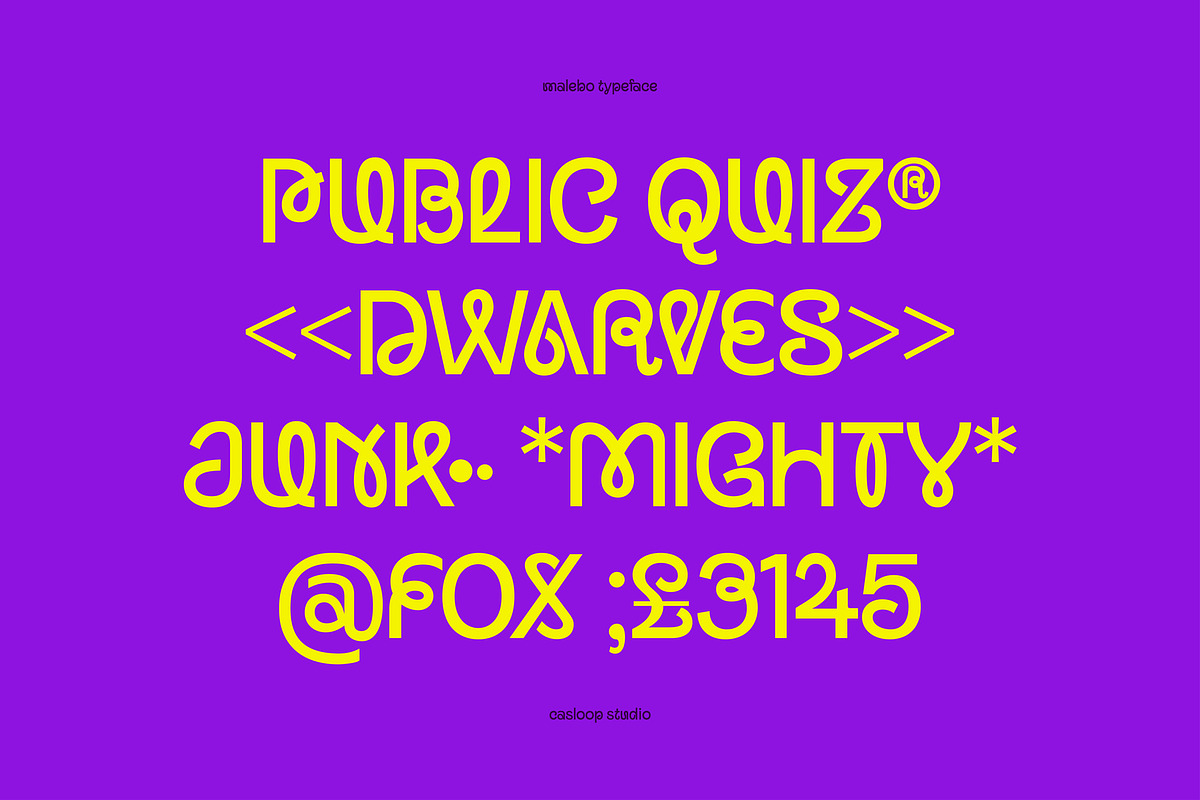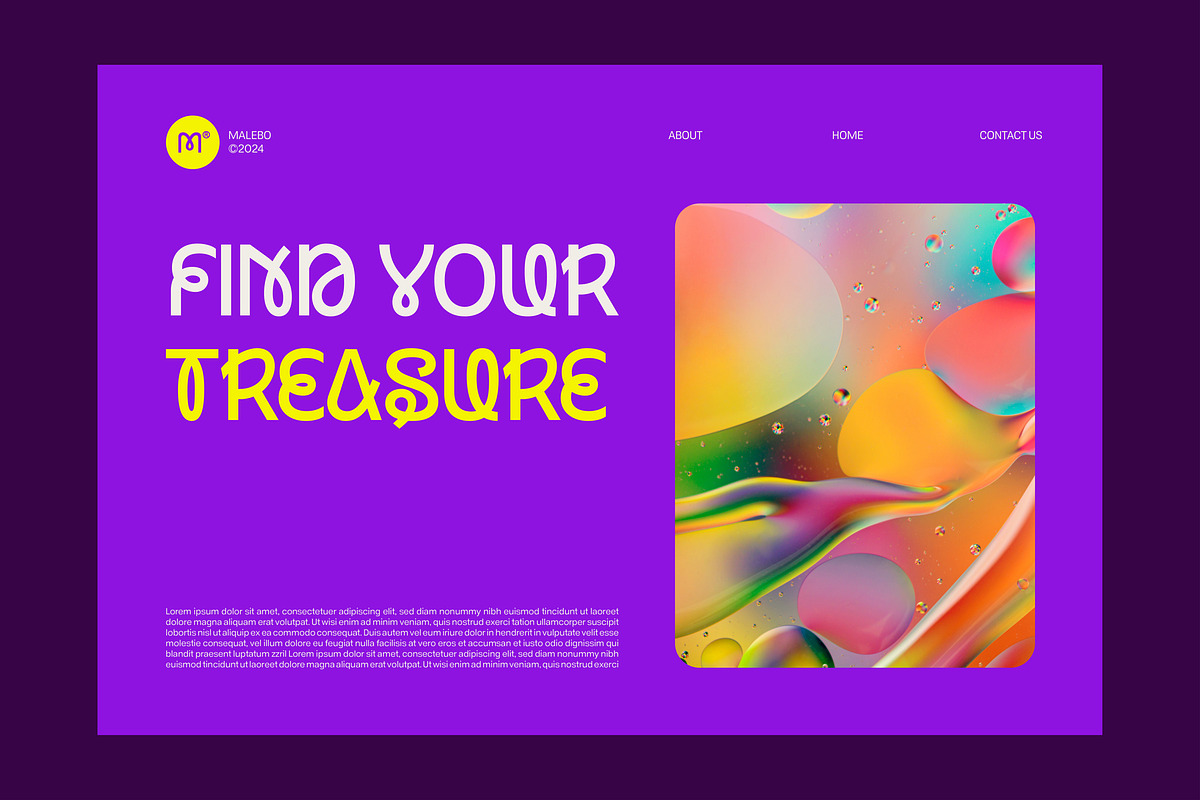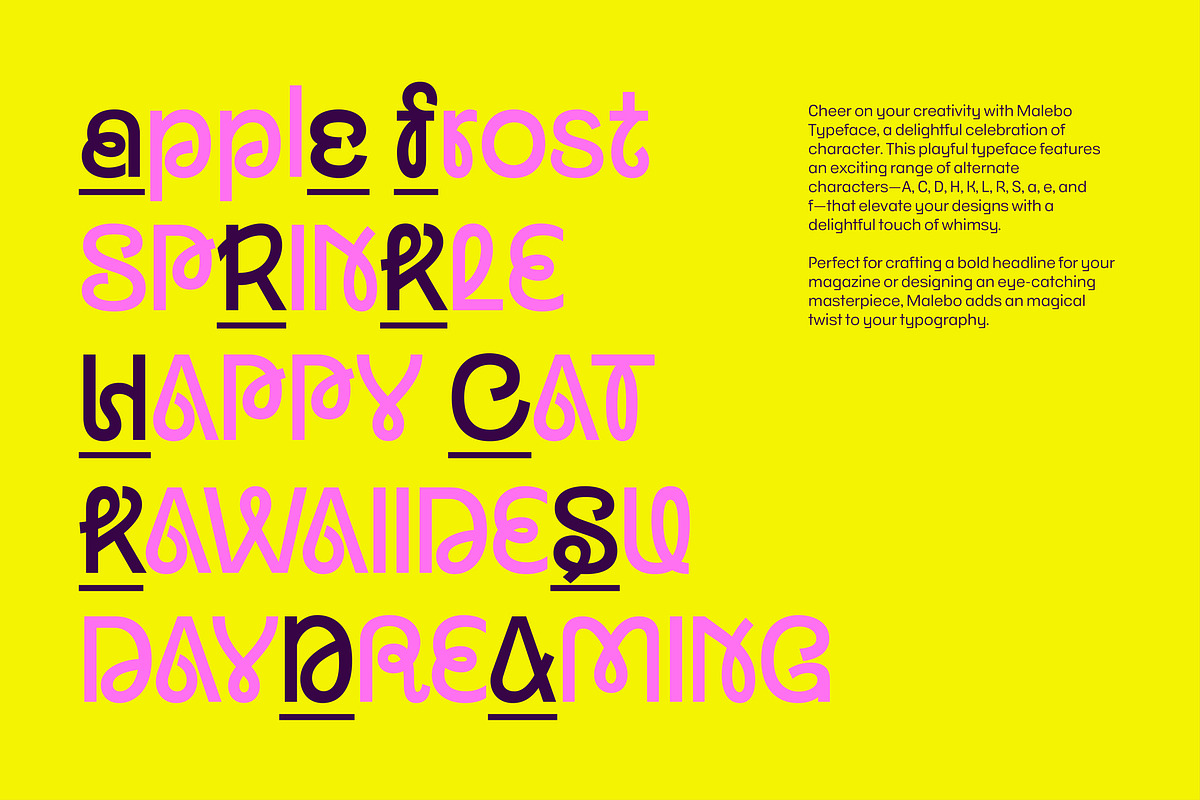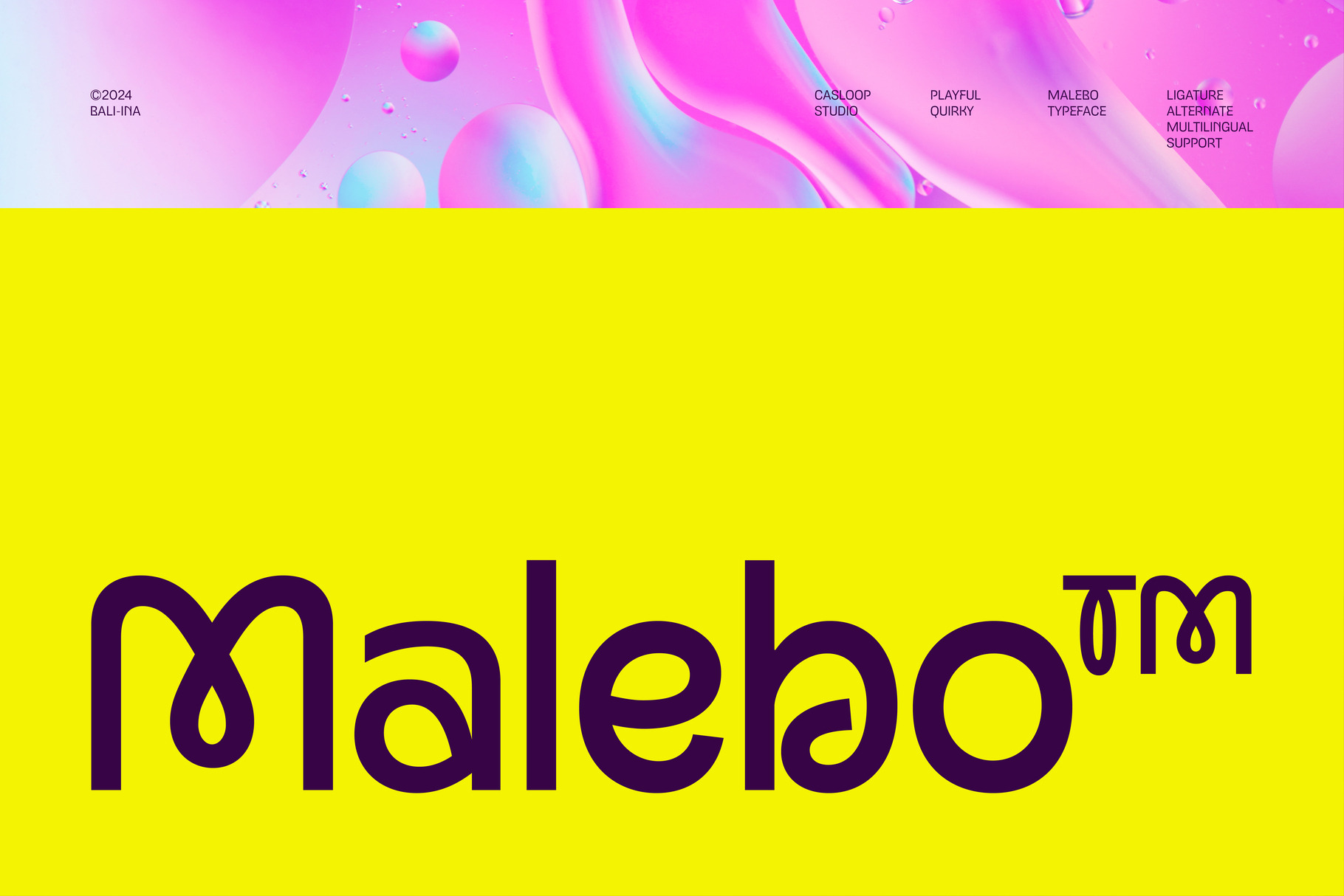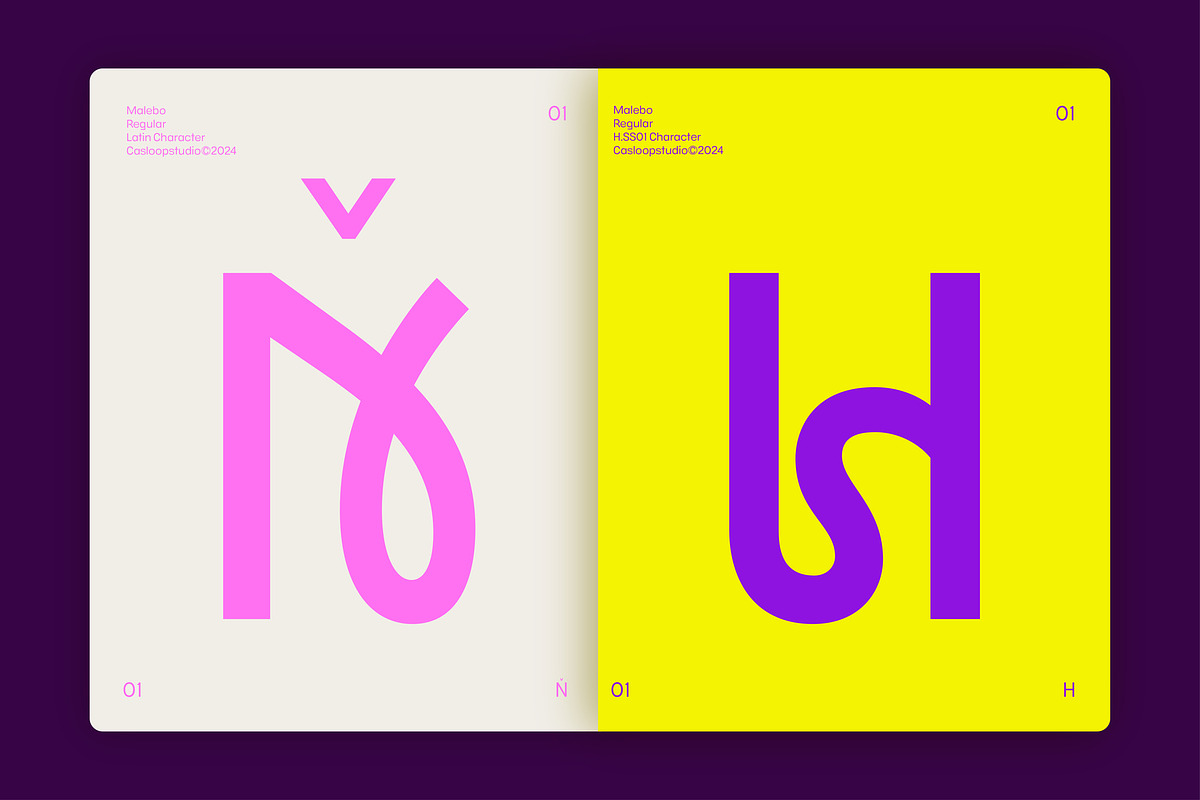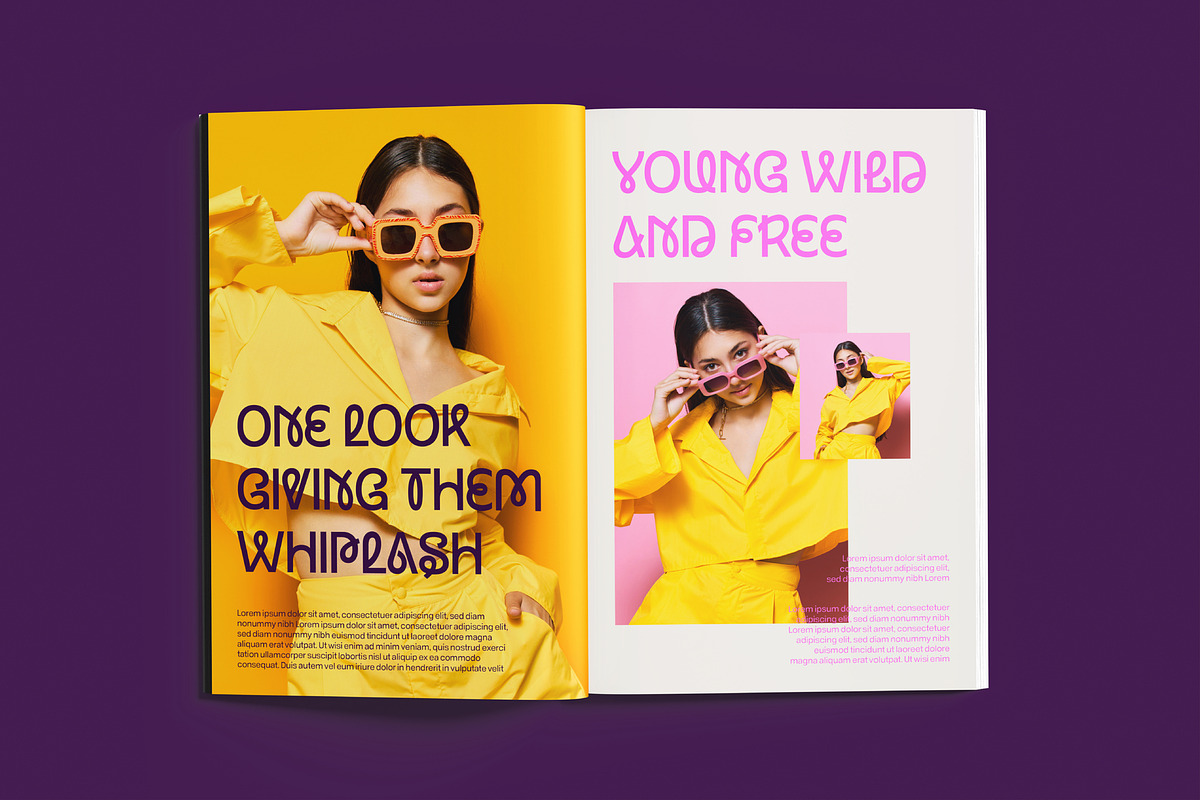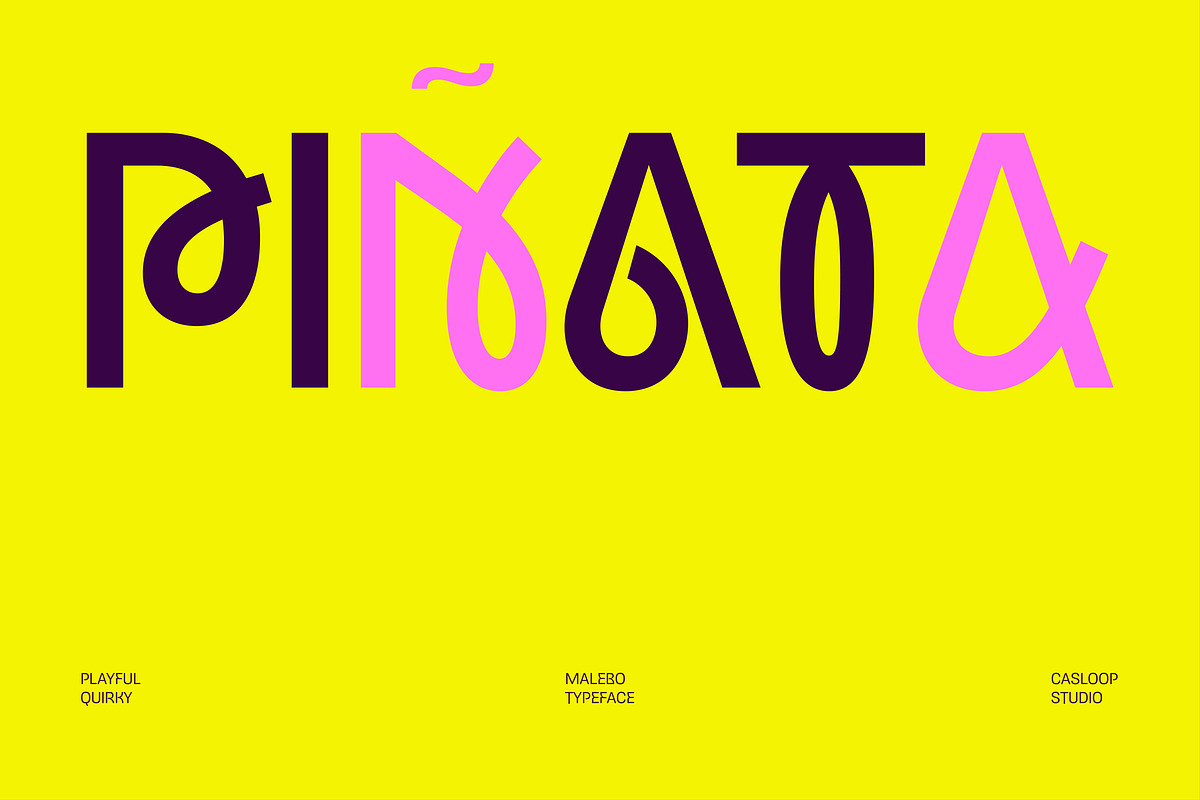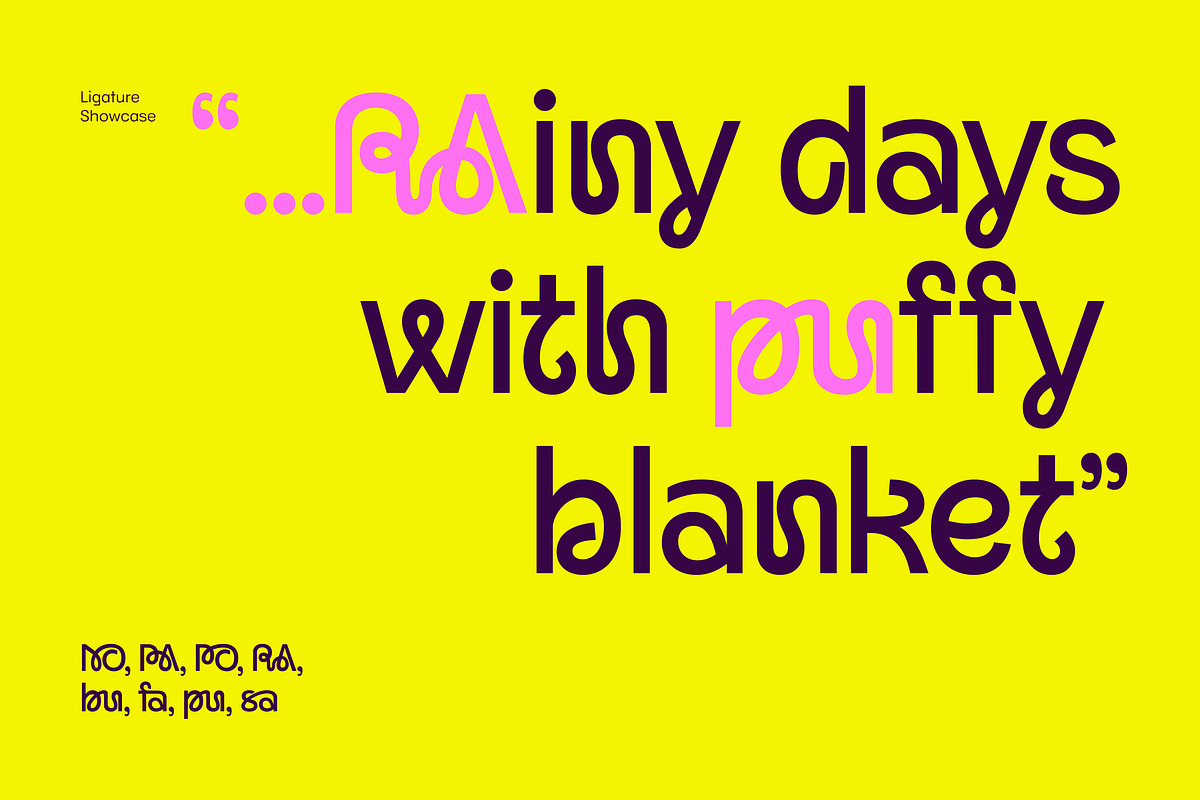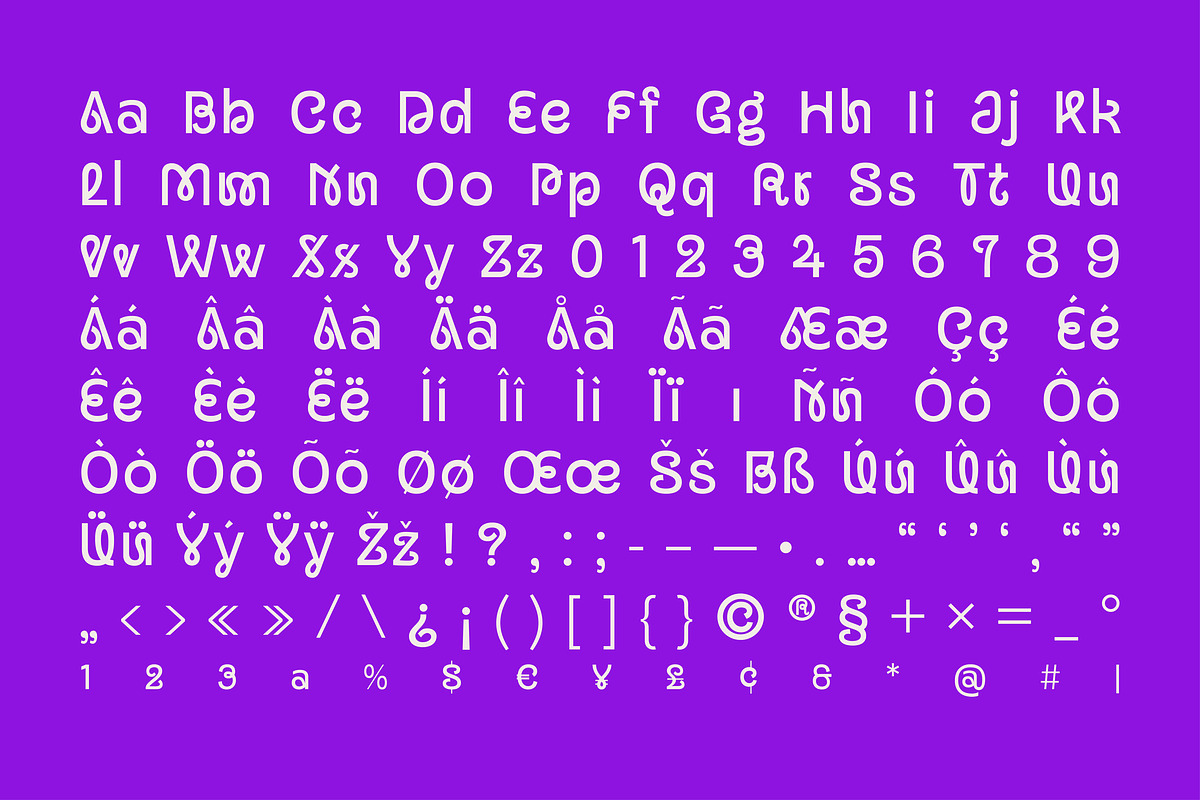
Malebo - Quirky Logo Sans Font
Introducing Malebo – Where Elegance Meets Playful Creativity Malebo is a sleek and minimalist font that merges clean sophistication with a playful edge. Its unique combination of Sans Serif precision and script gestures creates a stylish and decorative typeface, perfect for those looking to add a touch of casual charm to their designs.
Malebo’s monolinear structure features smooth curves, meandering loops, and elegant bends, making it ideal for corporate identity, branding, website headlines, magazines, logos, and more. Its ability to adapt to various visual needs—from digital media to motion graphics—ensures that your design will always look fresh, trendy, and attractive.
Designed for those who appreciate originality and hypebeast-level impact, Malebo is your go-to choice for projects that need to stand out. Whether it’s for editorial spreads, packaging, or advertising, Malebo’s loopy Sans flexibility will add just the right amount of playfulness and charm.
Supported Languages: Bosnian, Catalan, Czech, Danish, German, English, Spanish, Estonian, Finnish, French, Bergen, Wild, Irish, Mango, Croatian, Hungarian, Icelandic, Italian, Lithuanian, Tan, Latvian, Maltese, Dutch, Norwegian, Polish, Haas, Portuguese, Romanian, Slovak, Slovenian, Albanian, Swedish, Turkish.